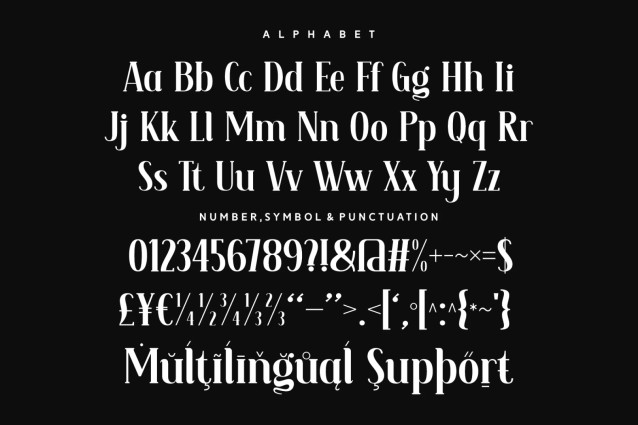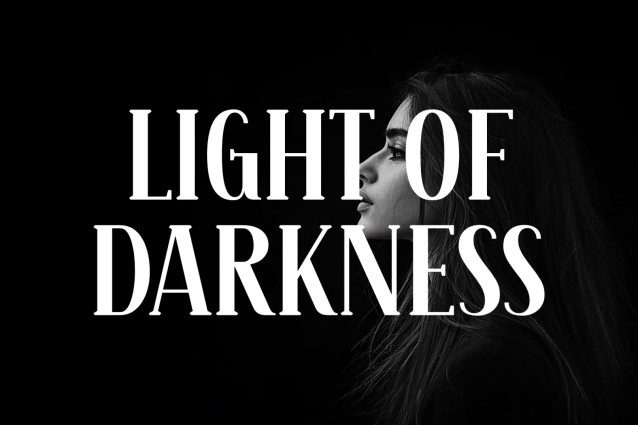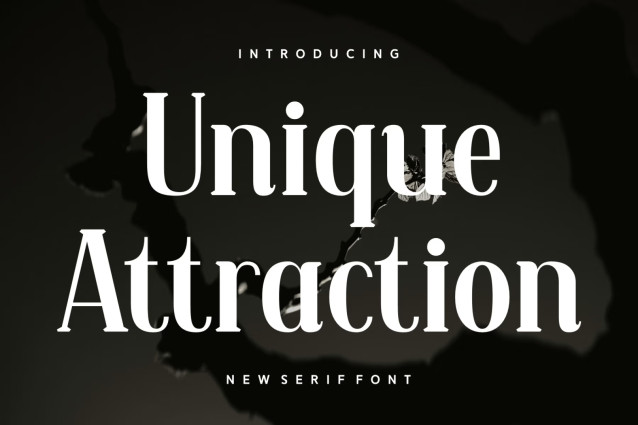
Unique Attraction Font
Immerse yourself in the captivating world of “Unique Attraction”, an amalgamation of captivating typography artistry. This harmonious blend of Serif, Elegant, and Modern fonts exudes a sophisticated charm tailor-made for the contemporary photography domain. As an Accent and Apparel font, it radiates authenticity, effortlessly syncing with a plethora of design aesthetics.